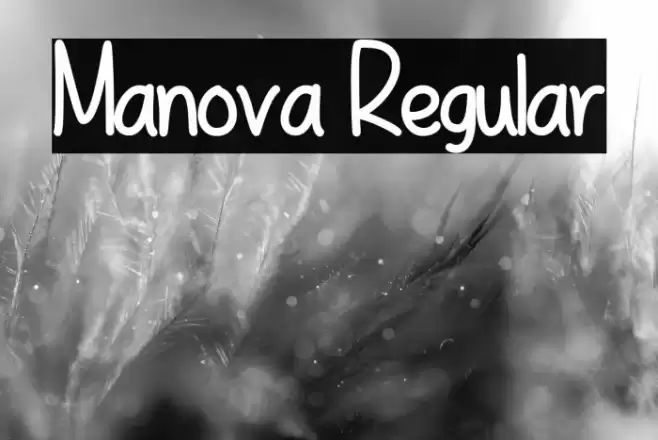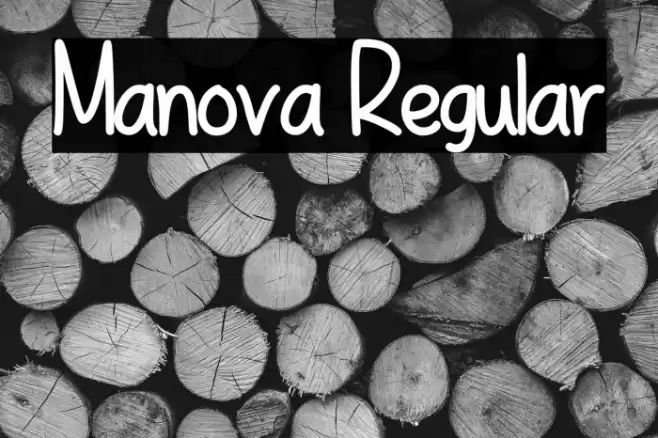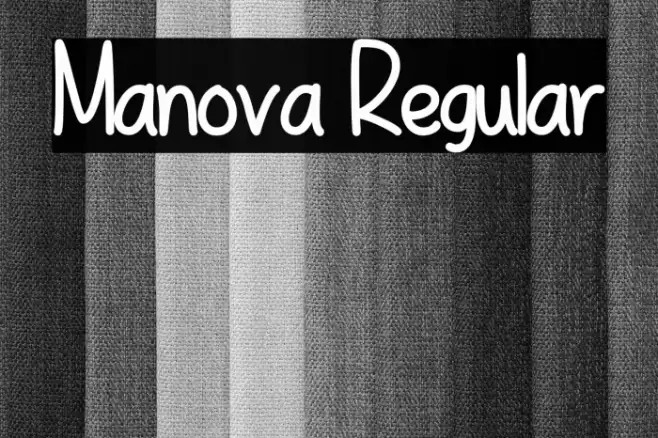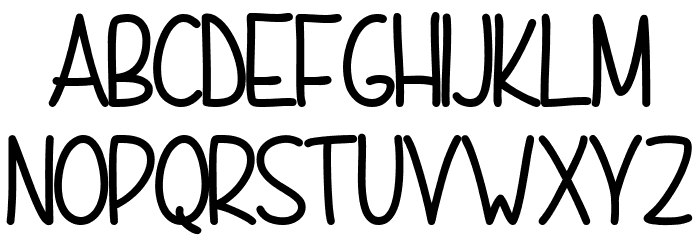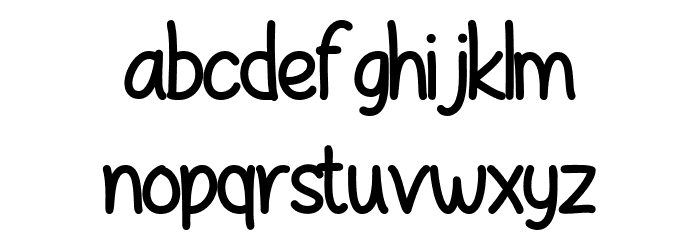
Manova Regular Font
Manova Regular Description
This font features a playful and casual handwritten style, characterized by its smooth curves and slightly irregular letterforms. The uppercase and lowercase letters maintain a consistent flow, adding a friendly and approachable feel. The rounded edges and uniform stroke width contribute to its legibility and charm. The numerals and special characters are designed to match the overall aesthetic, ensuring a cohesive appearance across all text. This font is versatile, suitable for a variety of creative projects that require a personal touch.
A playful, casual handwritten font with smooth curves and rounded edges from Uncategorized fonts.
- Font: Manova Regular
- Proposed Projects: Ideal for greeting cards, children's books, informal branding, and social media graphics.
- Overall Style: Casual
- Use Case: Headlines, Informal text, Creative projects